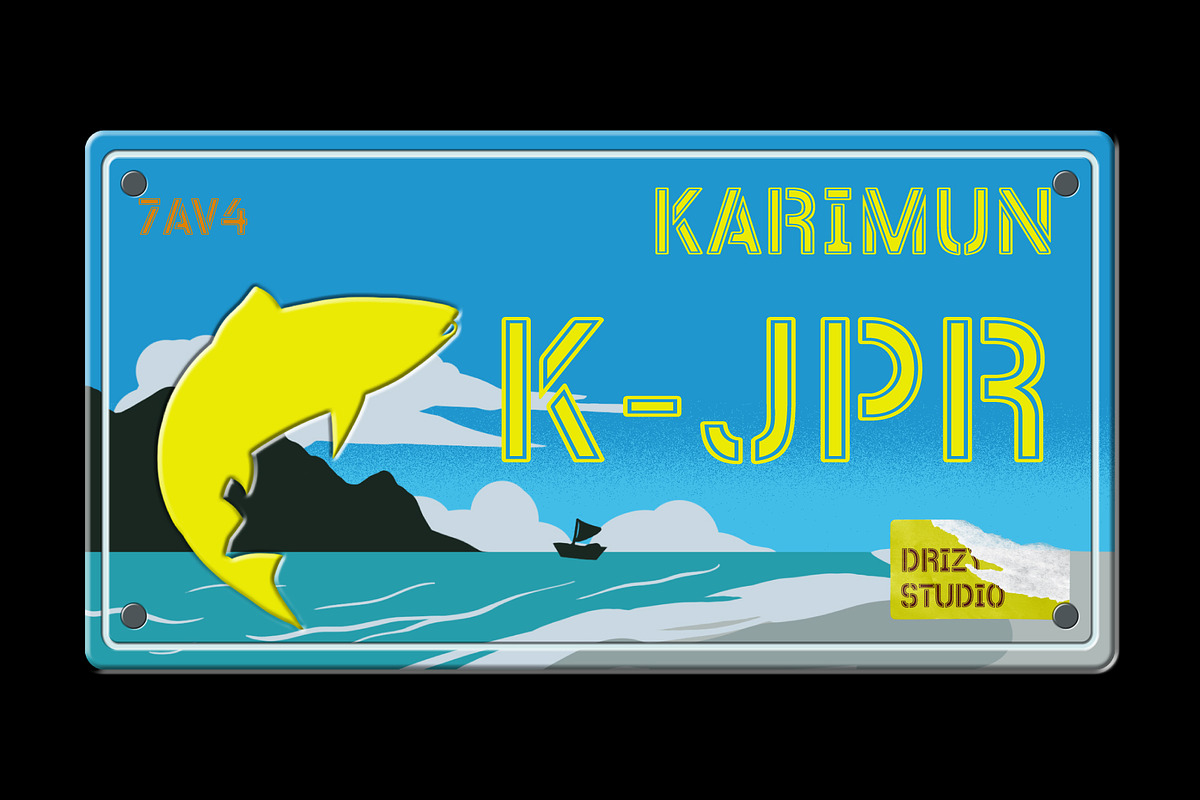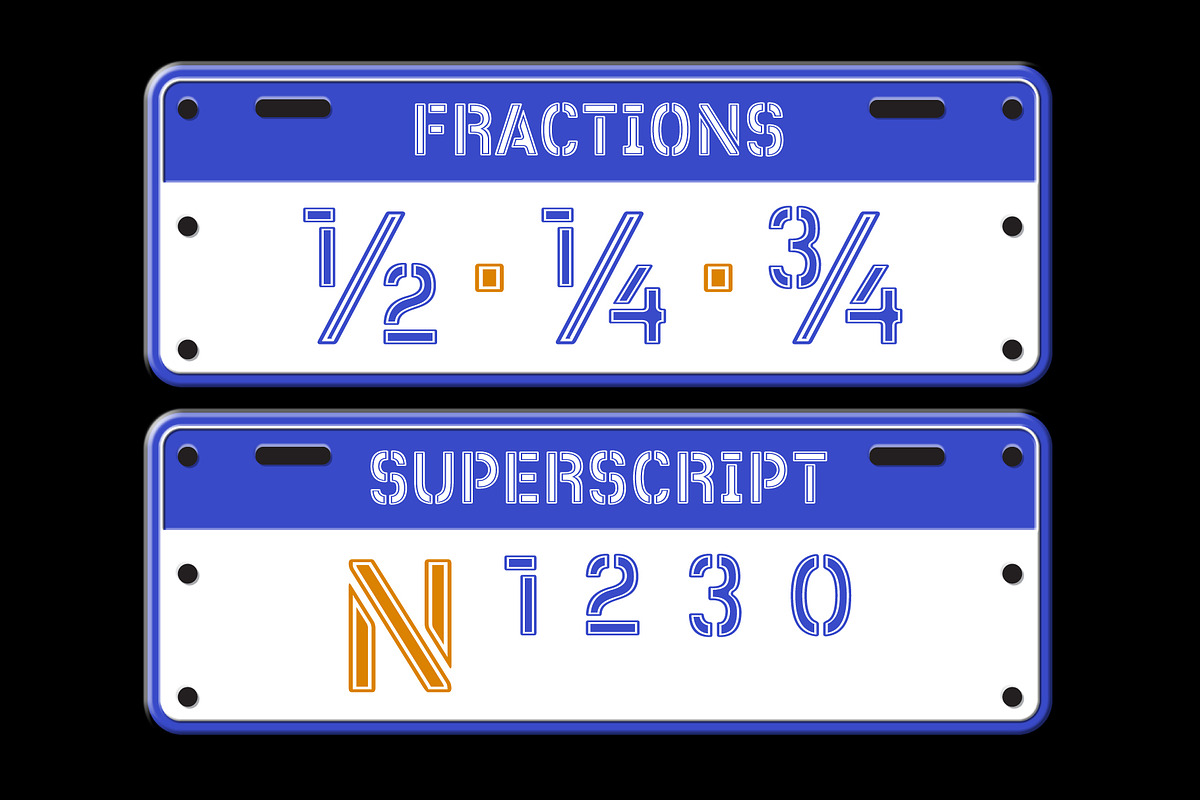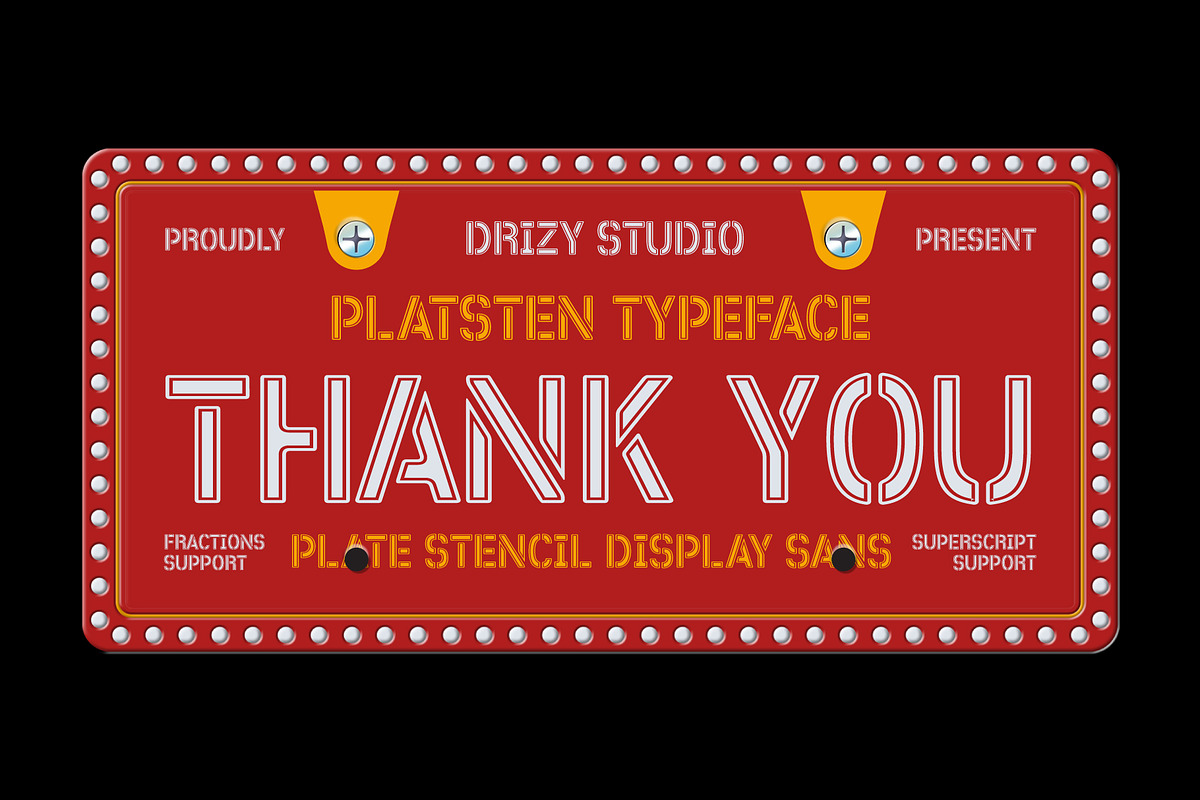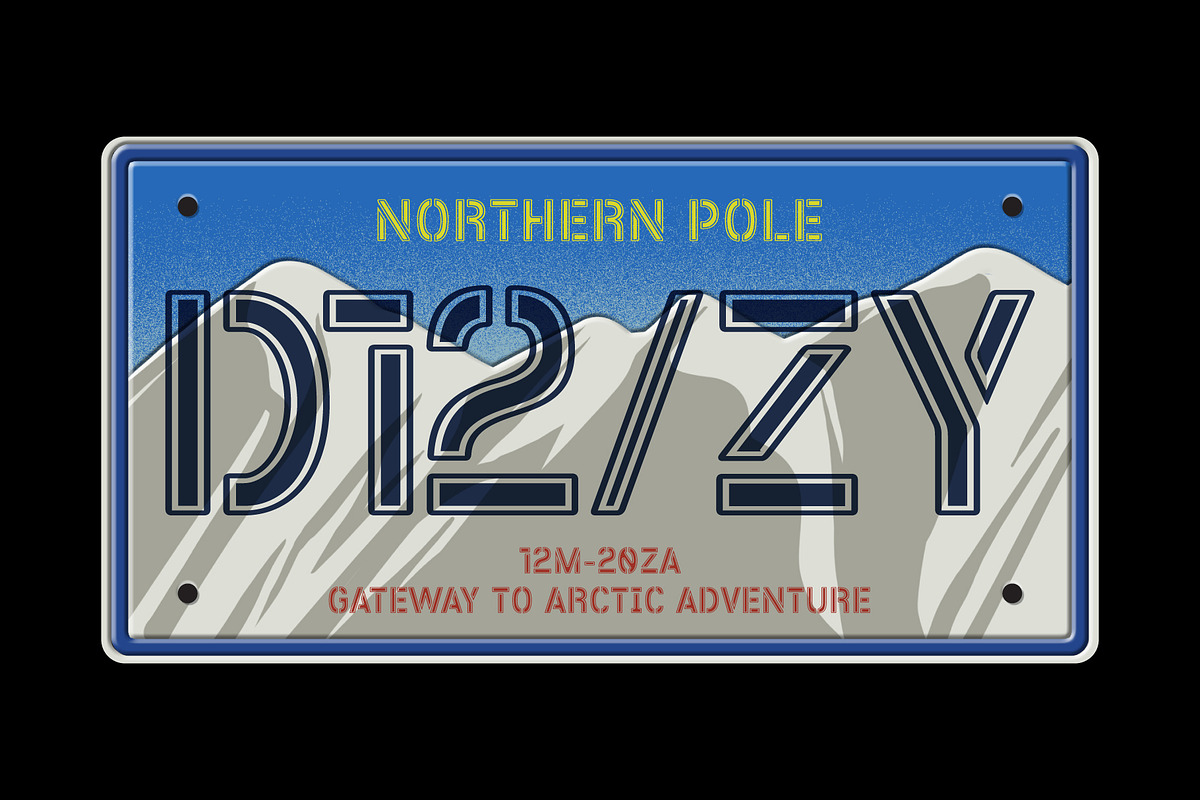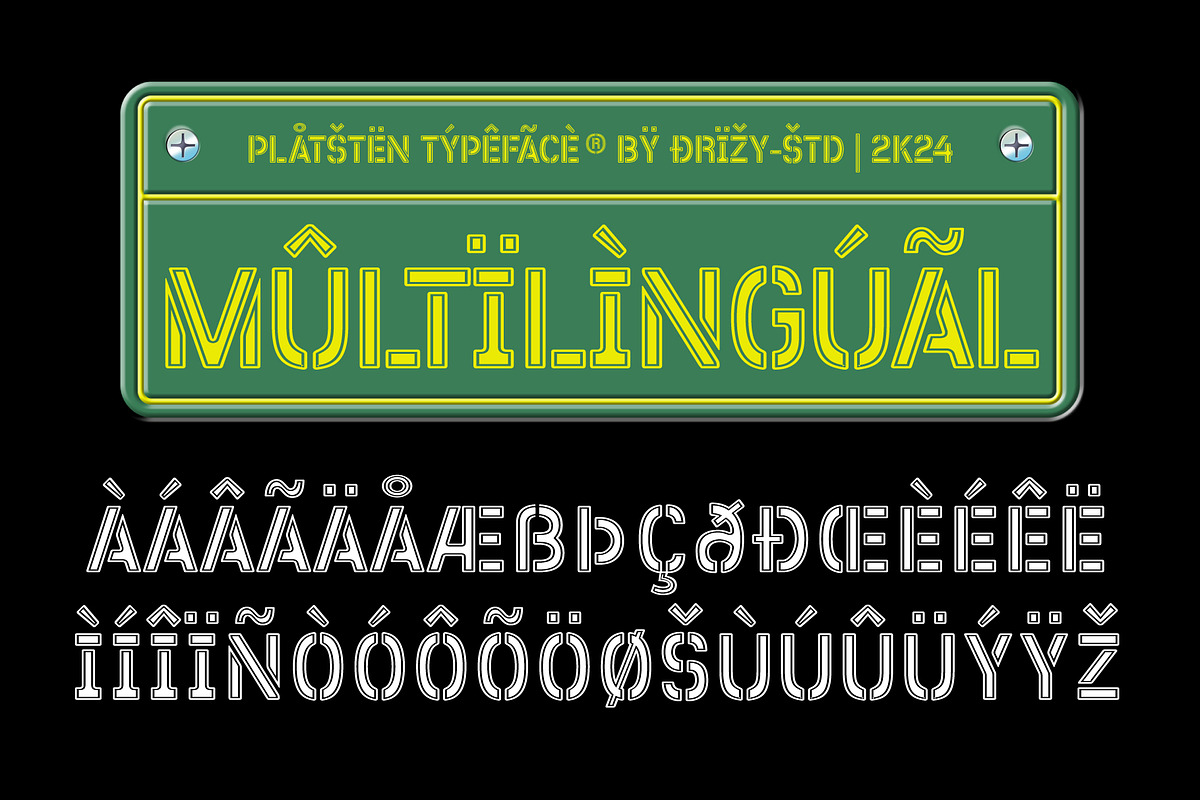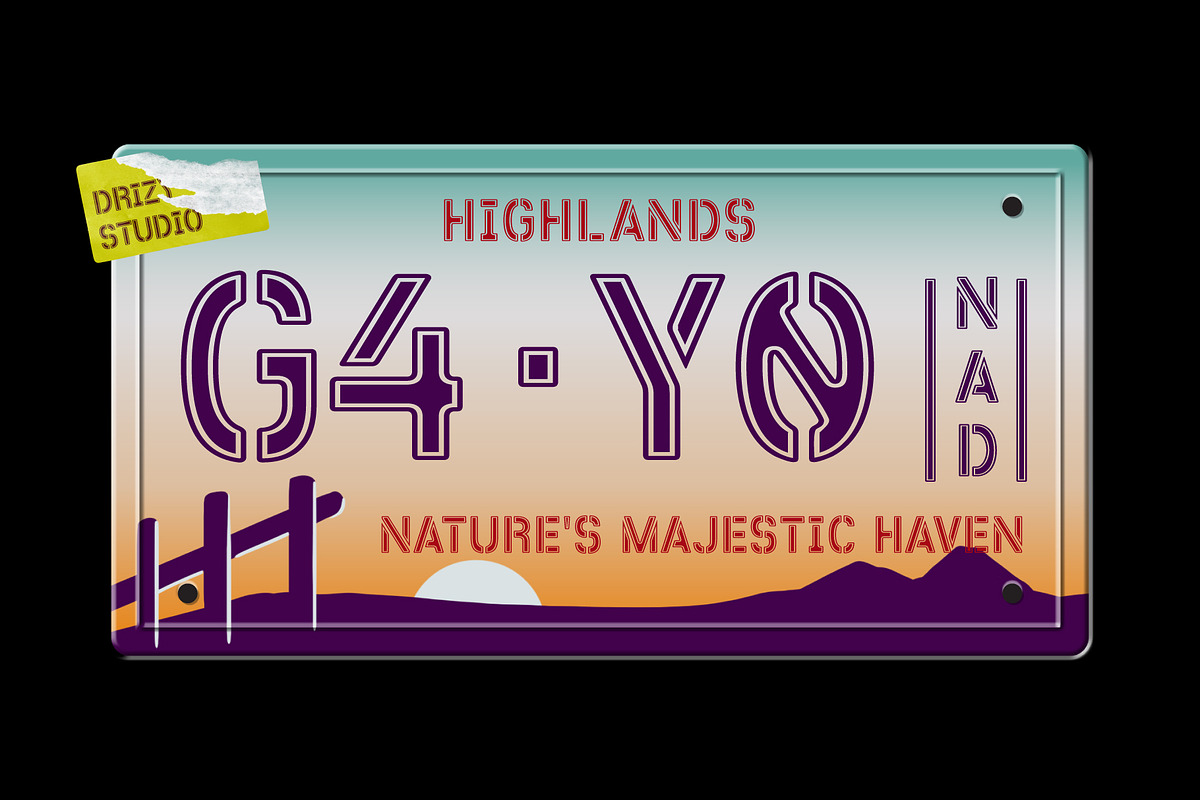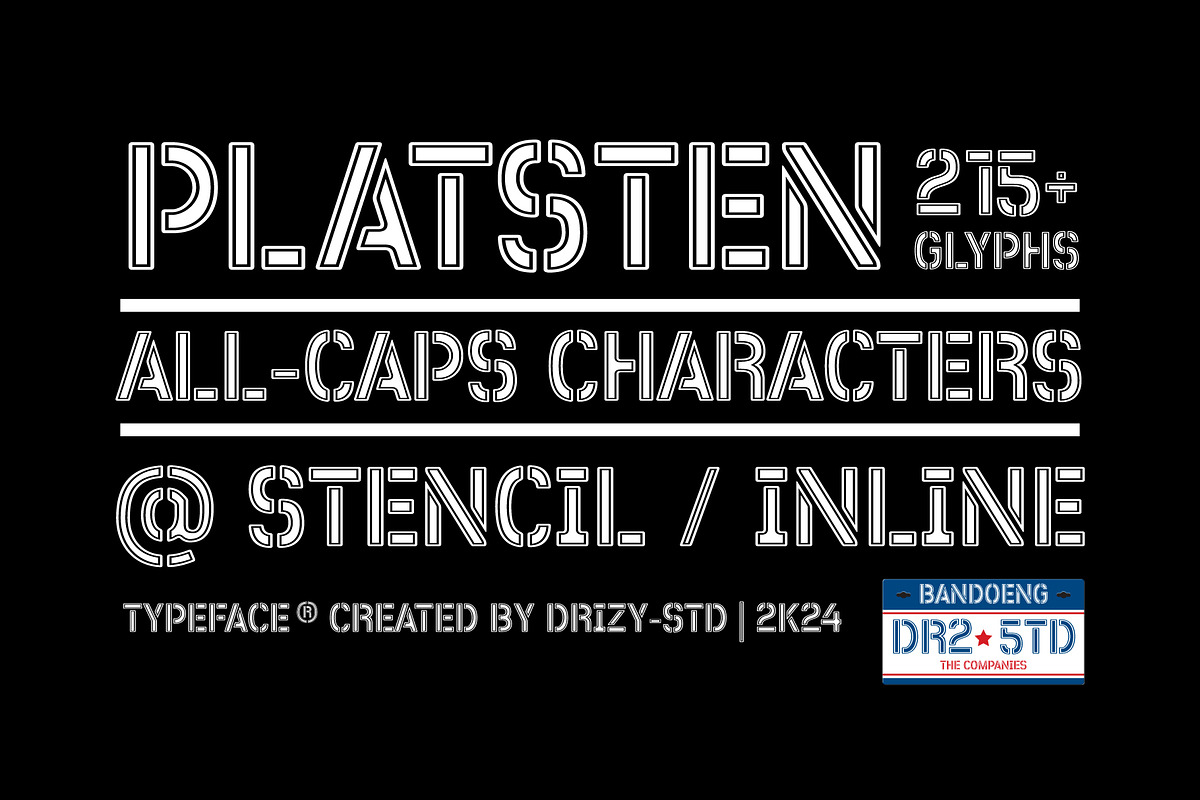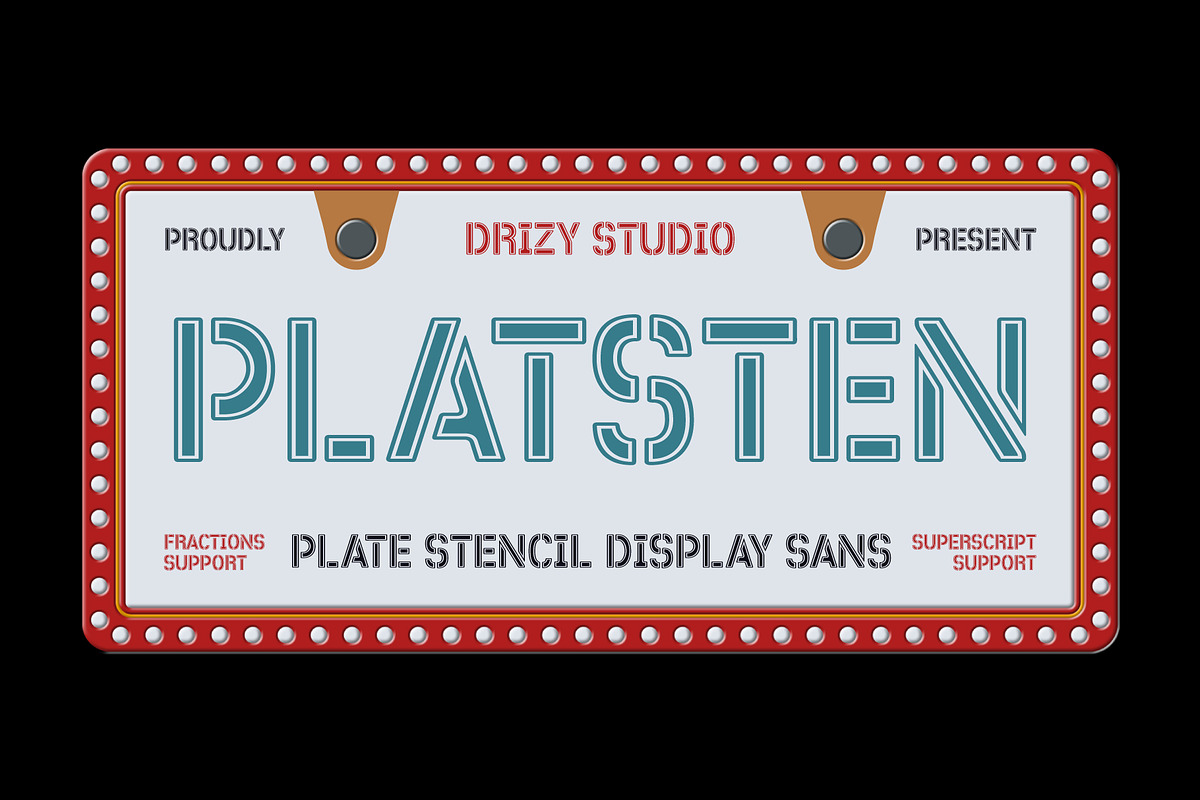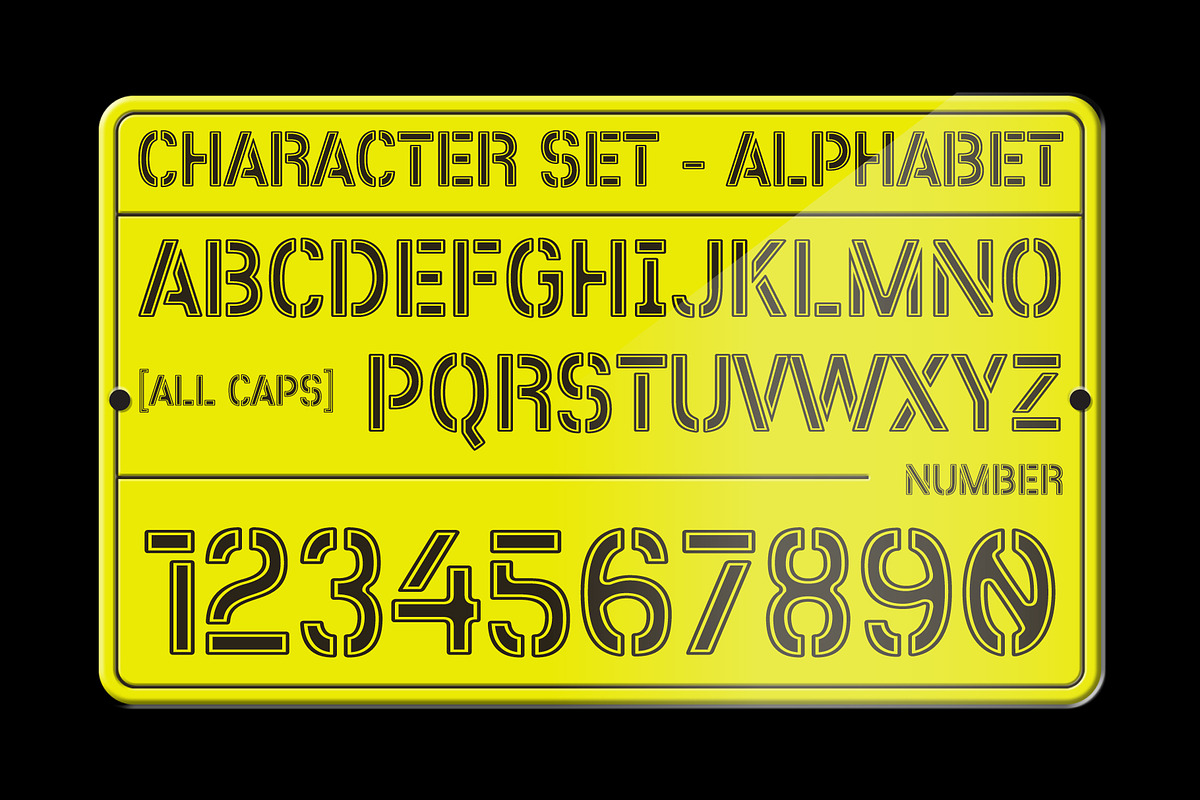
Platsten - Plate Stencil Font
Platsten - Plate Stencil Display Font
Plunge into the world of creativity and innovation with Platsten, a uniquely designed License Plate display font that brings the essence of industrial chic right to your fingertips. Crafted meticulously for designers, artists, and creatives who dare to stand out, Platsten embodies boldness and originality in every character. This font is not just a typeface; it's a statement—a blend of vintage craftsmanship and contemporary design ethos.
Platsten features: Character Set Punctuation & Numbers Multilingual
Elevate and explore the design possibilities with this License Plate Font!